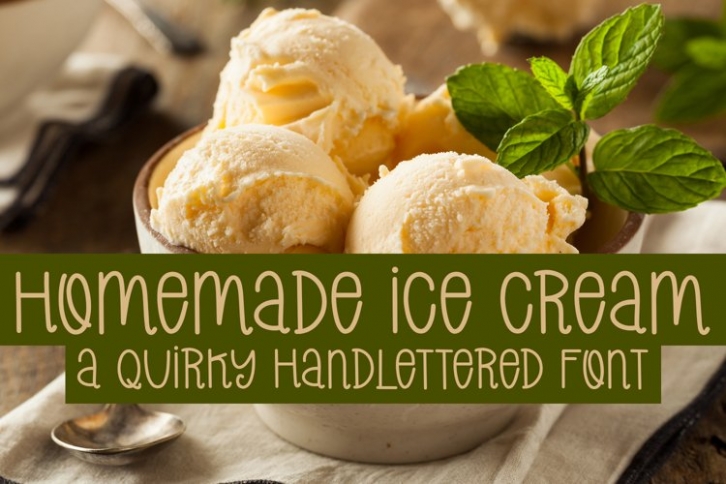
Homemade Ice Cream is a beautiful font that was designed by plusstore. It's a great choice for designers and creatives who need such a font. It was released on March 27, 2022 and the file size is 9.39 MB. Homemade Ice Cream may give a more youthful, expressive and casual look to your project. It is a very beautiful, refined, elegant, and high-quality font.